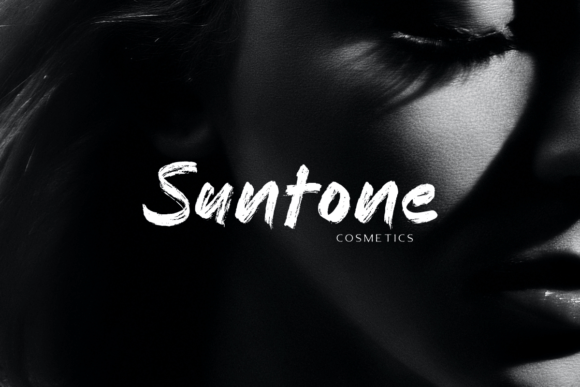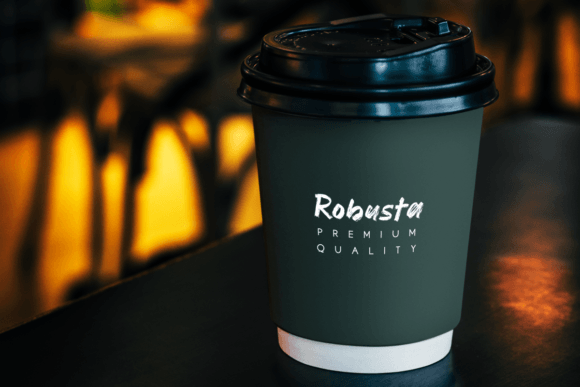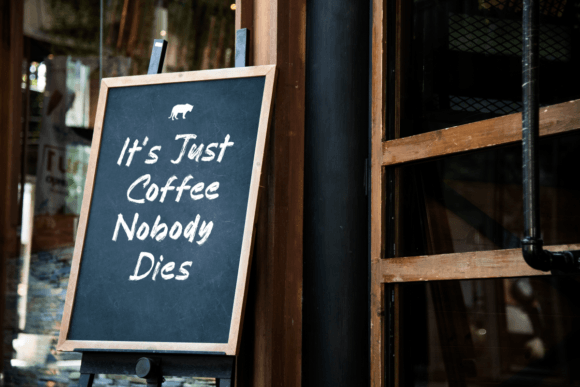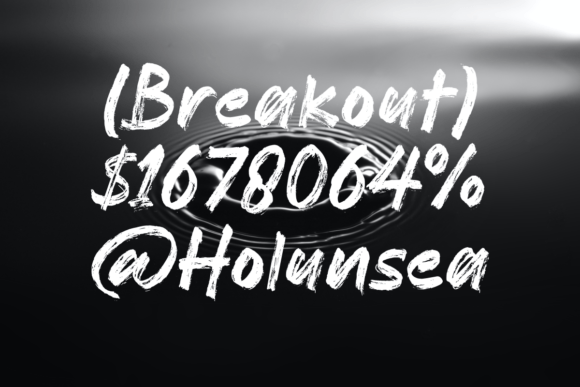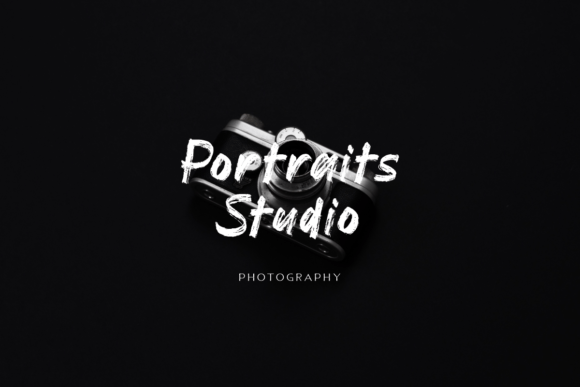
Introduction to Rougher Font
Have you ever stared at a blank canvas, trying to come up with the perfect design concept, only to be inspired by a worn, vintage sign or a hand-scrawled note? That’s exactly the kind of creative spark that the Rougher Font is designed to capture.
This high-quality font exudes a distinctive and rustic charm, with its textured, hand-drawn appearance giving it a raw and organic feel. Whether you’re working on a creative project that requires a sense of authenticity and uniqueness, or simply want to add a touch of artistic flair to your text, the Rougher Font is an invaluable design resource.
Key Features of Rougher Font
- High-quality vector design, ideal for creative projects that require a unique touch.
- Transparent background, allowing for seamless integration with various design elements.
- Unique, hand-drawn design aesthetic, setting it apart from other fonts in its class.
Honest Review: Rougher Font
I recently stumbled upon the Rougher Font, a free download that caught my eye due to its unique aesthetic. As a designer, I’m always on the lookout for high-quality design resources that can elevate a creative project. In this review, I’ll share my honest thoughts on the Rougher Font.
- ✨ Unique and edgy design style that can add a touch of personality to a project.
- ✨ Comes in a variety of weights and styles, making it a versatile design resource.
- ✨ Has a transparent background, which makes it easy to layer over other design elements.
- ⚠️ Some of the characters may not be as smooth or refined as I’d like to see, especially at smaller font sizes.
- ⚠️ Not as comprehensive as some other font packs, with a limited number of styles and weights.
Overall, I’m impressed with the Rougher Font’s potential to add a unique touch to a creative project. While it’s not perfect, it’s a great free download that can be a valuable addition to any designer’s toolkit.
Rougher Font
The Rougher Font is a high-quality, bold, and versatile design resource ideal for creative projects. Its unique texture and aesthetic make it perfect for adding a touch of ruggedness to your designs.
Tips for Getting the Most Out of Rougher Font
To get the most out of the Rougher Font, use it with a transparent background to create a striking contrast. You can also combine it with other fonts and design elements to create a unique and eye-catching look.
The Rougher Font is perfect for a variety of creative projects, including logos, branding materials, posters, and social media graphics. Its rugged texture and aesthetic make it ideal for outdoor and adventure-themed designs.